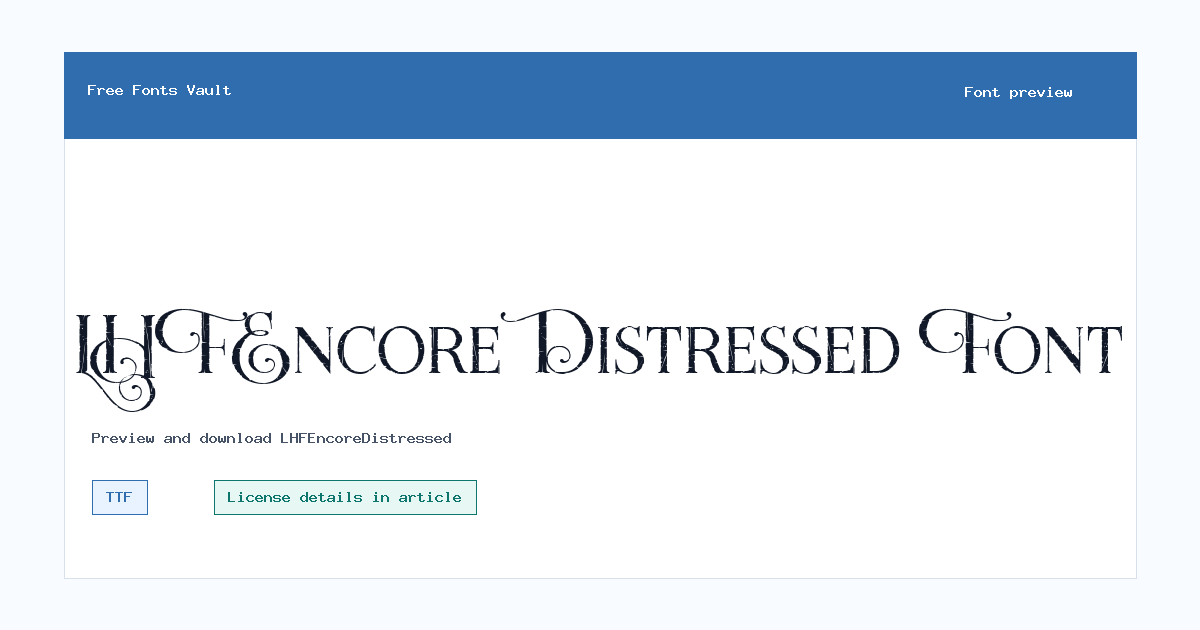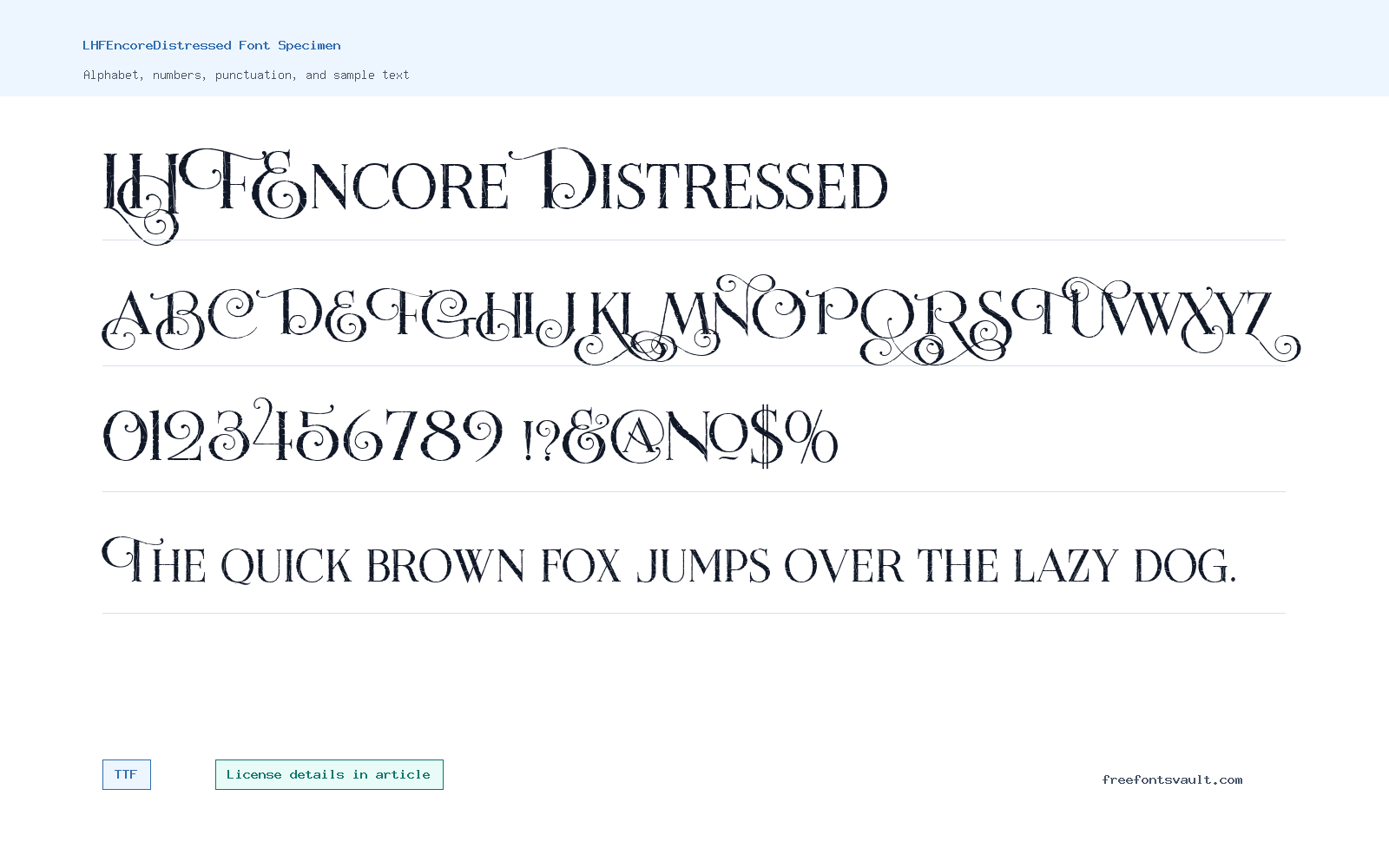
LHFEncoreDistressed
- Designer John Davis
- Foundry John Davis for Letterhead Fonts
LHFEncoreDistressed font.
LHFEncoreDistressed is a textured display font made for words that need to look aged, printed, and a little rough around the edges. It has the personality of old shop signs, labels, and poster lettering rather than the quiet feel of a reading font.
About LHFEncoreDistressed Font
LHFEncoreDistressed works best when the type itself is part of the design. The worn surface gives headlines a weathered sign-painting mood, so a simple wordmark, label, badge, or poster title can feel more established without adding extra effects. It is not a practical paragraph font; the texture is the point, and that texture needs room to breathe.
For design work, treat LHFEncoreDistressed as the main voice on the page. It can carry a vintage logo draft, a tavern-style sign, a western badge, a retro package label, or a grungy event headline. Pair it with a plain sans serif or readable serif for prices, dates, descriptions, and body copy so the distressed lettering stays special instead of fighting every other line.
- Distressed display lettering with a worn printed texture
- Strong personality for short headlines, labels, and sign-inspired graphics
- Best used at medium to large sizes where the texture remains clear
- Vintage shop signs, badges, and poster titles
- Packaging mockups, label designs, and rustic branding drafts
- Event graphics, album-style covers, and decorative headline treatments
- Short display words where a weathered texture helps set the mood
LHFEncoreDistressed is credited to John Davis, with the foundry shown as John Davis for Letterhead Fonts.
Start with a large headline size, then reduce only after checking readability. Avoid tight line spacing and crowded all-caps blocks. If you need a full layout, let this font handle the title and use a simpler typeface for the practical information around it.
What kind of font is LHFEncoreDistressed?
It is a distressed display font for short, decorative text such as signs, badges, labels, and poster titles.
Is LHFEncoreDistressed good for body text?
No. The worn texture is made for display use. Long paragraphs will usually be harder to read than they need to be.
Can I use LHFEncoreDistressed in a logo?
What should I pair it with?
Use a clean sans serif or simple serif for body copy, dates, prices, and smaller supporting text.